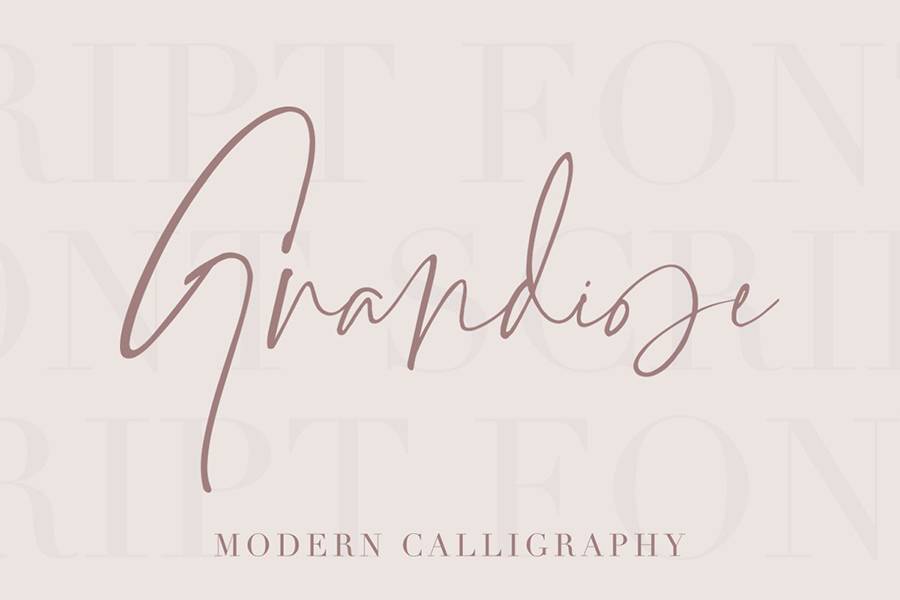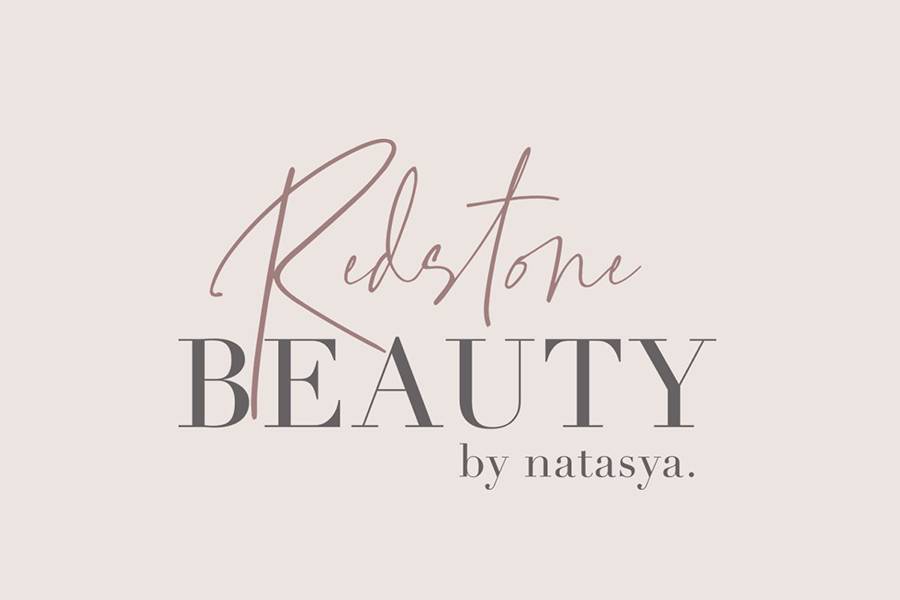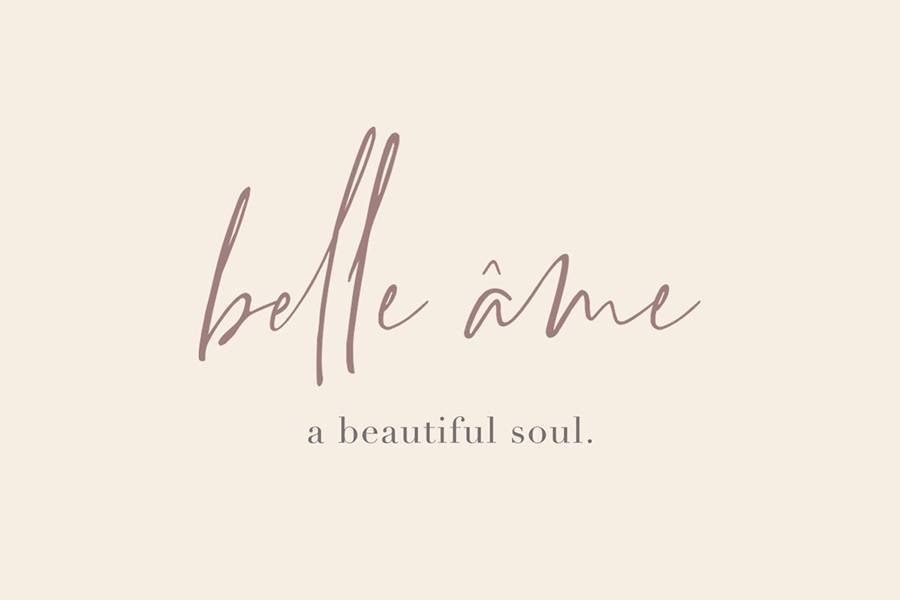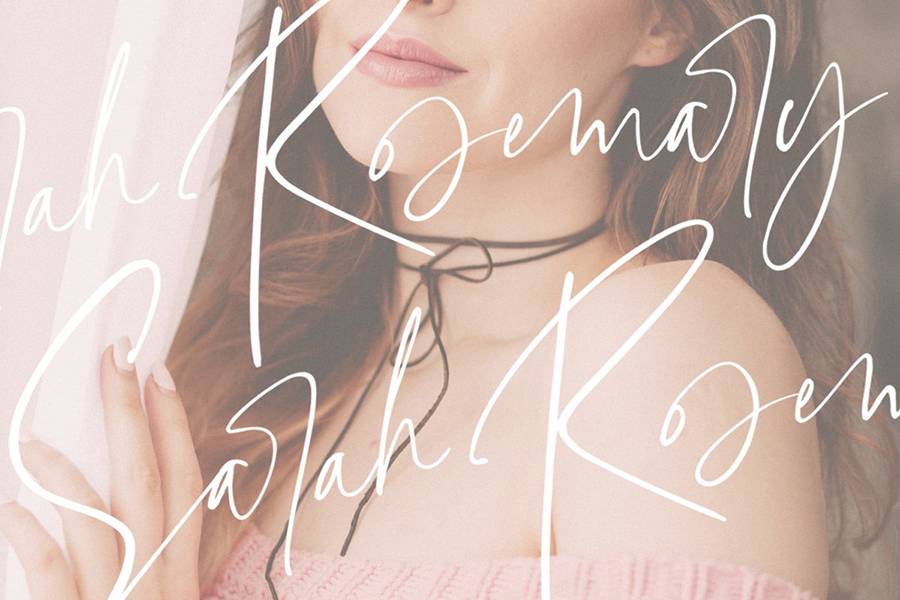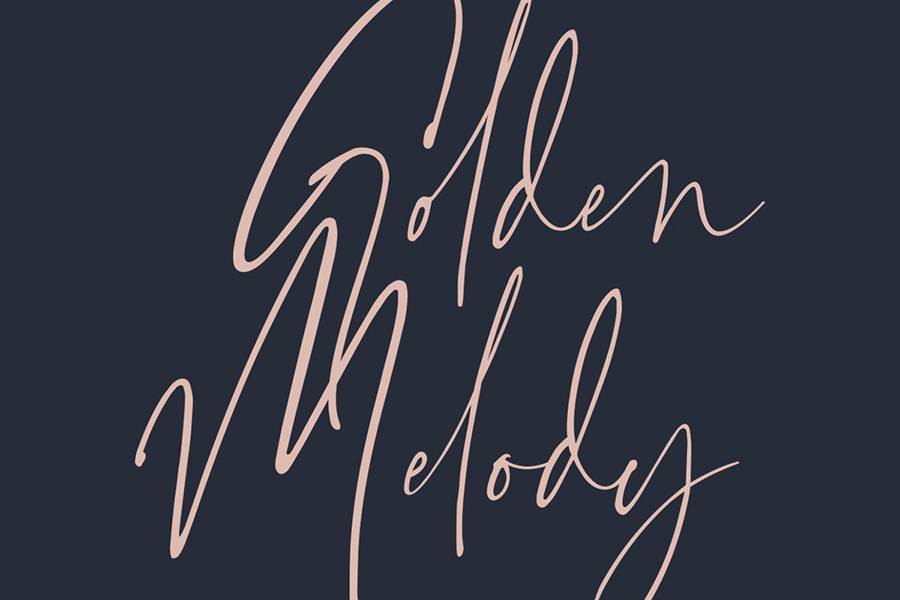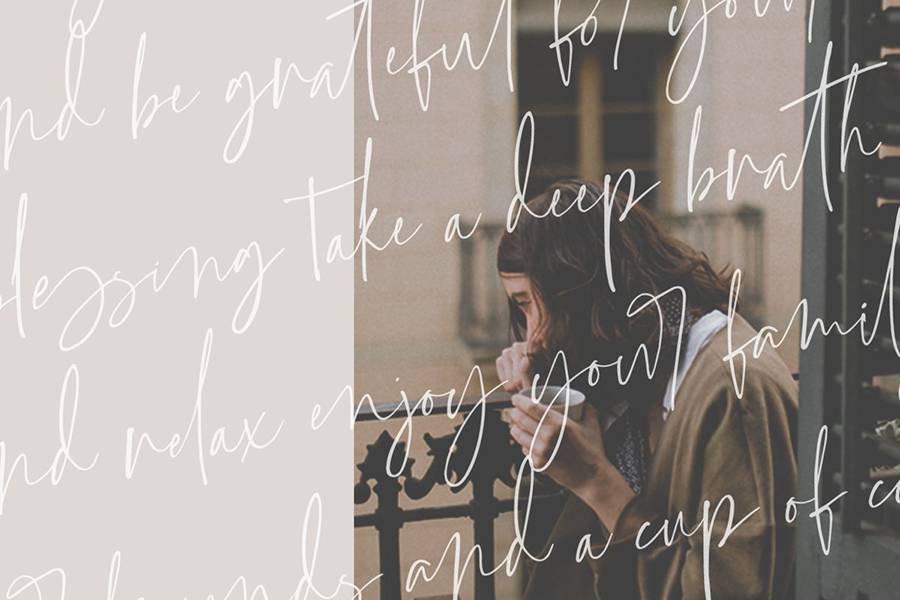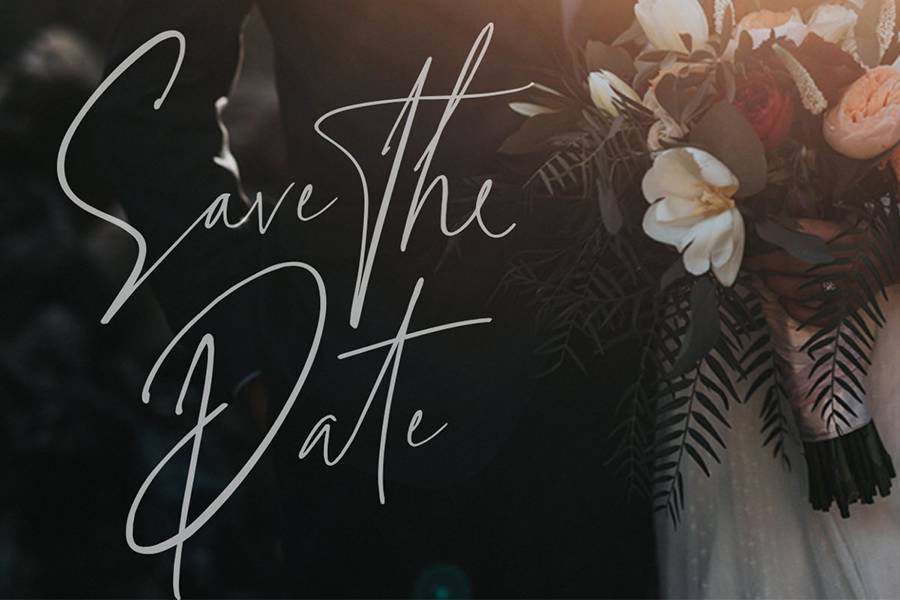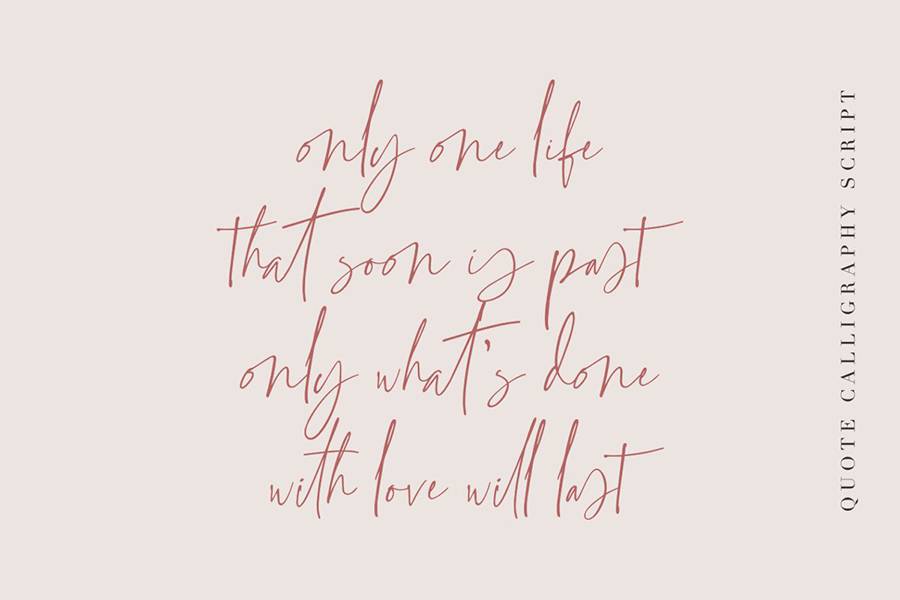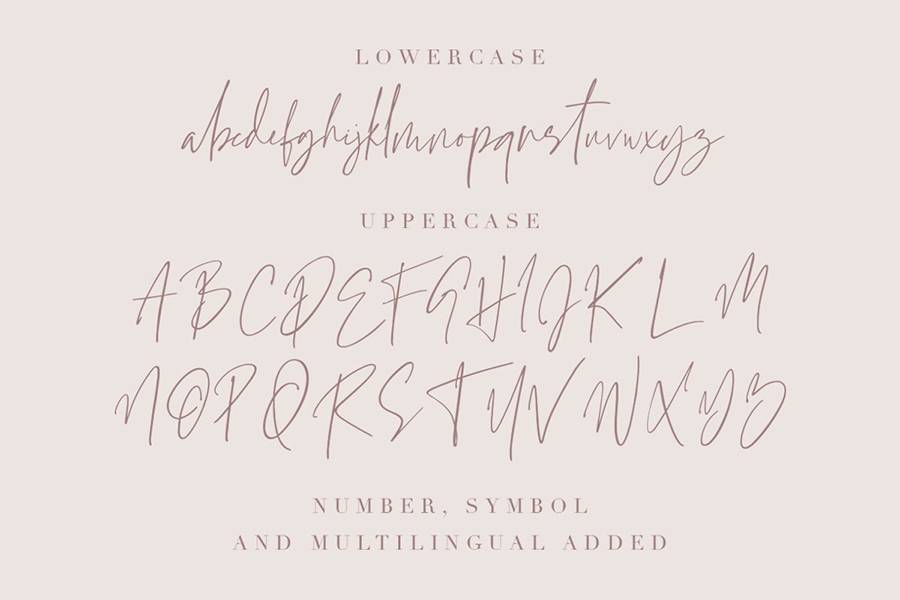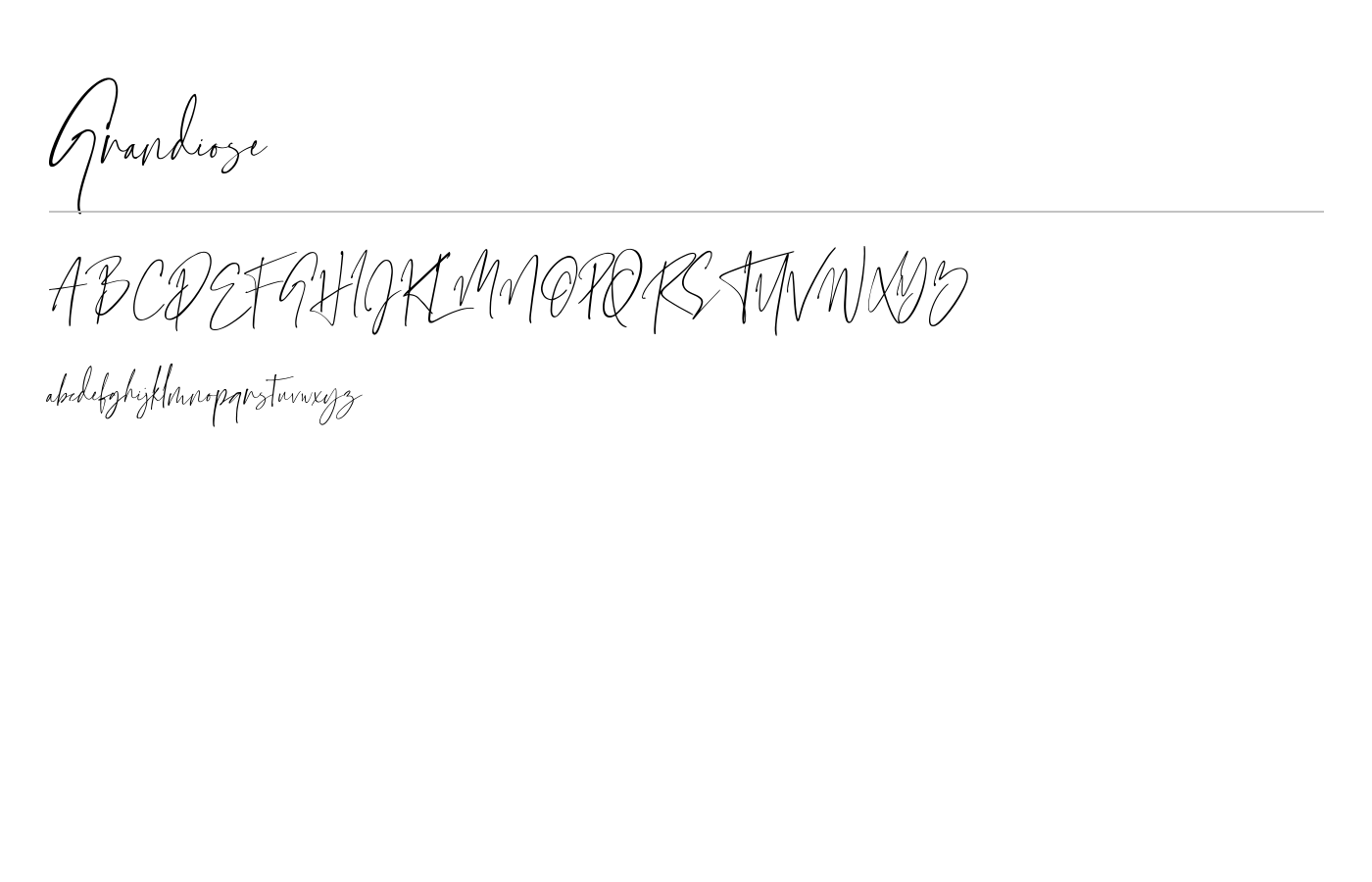
Grandiose Stylish Signature Font is an elegant, hand-drawn script that mimics the fluidity and spontaneity of a personal signature. Its thin, delicate strokes and tall, narrow letterforms give it a sophisticated and modern feel, making it perfect for luxury branding, invitations, and stylish logos. This font works best in designs where a touch of refined, effortless charm is desired, adding a unique, personal touch without sacrificing readability.
Grandiose Stylish Signature Font
About Grandiose Stylish Signature Font